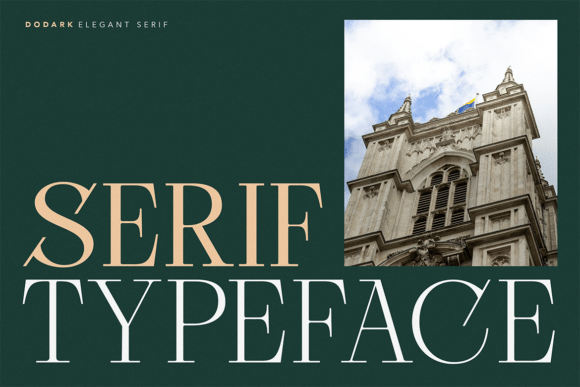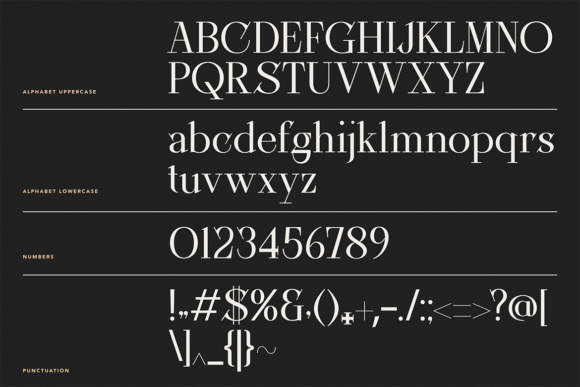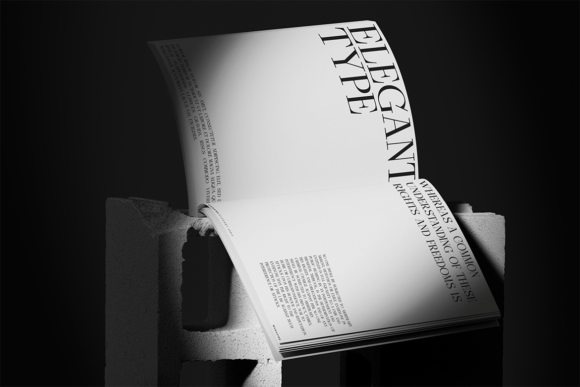
Discover the Elegance of Dodark Font: Elevate Your Designs with Sophistication
In the world of typography, finding the perfect font that combines elegance, simplicity, and versatility can be a daunting task. However, for designers and crafters looking to add a touch of sophistication to their projects, the search ends with Dodark Font. This exquisite duo, consisting of Dodark Regular and Thin Font, is meticulously designed to meet the needs of ventures that covet a refined aesthetic. In this article, we’ll delve into the features, benefits, and potential uses of Dodark Elegant Serif Font, exploring how it can elevate your designs to new heights.
The Essence of Dodark Font
Dodark Font is not just a typeface; it’s an experience that brings together the harmony of sophistication and simplicity. Its distinguishable yet adaptable style makes it an ideal choice for a wide range of design projects, from luxury branding and high-end fashion to elegant editorial content and sophisticated digital interfaces. The duo’s versatility is one of its most compelling features, allowing designers to effortlessly edit both text and color to suit their project’s specific needs.
Key Features of Dodark Font
• High-Quality Resolution: Dodark Font is rendered in high-quality resolution, ensuring that your designs look crisp and professional across various platforms and devices.
• Elegant Serif Design: The font features elegant serifs that add a touch of sophistication and luxury to any design, making it perfect for projects that require a refined look.
• Versatile Duo: With Dodark Regular and Thin Font, designers have the flexibility to choose the weight that best suits their project’s tone and style, from bold statements to subtle nuances.
• Effortless Edits: The adaptability of Dodark Font allows for effortless edits to both text and color, streamlining the design process and giving creators more freedom to experiment.
Applications of Dodark Font
The applications of Dodark Font are vast and varied. Here are a few examples of how this elegant serif font can be used:
• Branding and Logo Design: Create a lasting impression with a sophisticated brand identity that stands out from the competition.
• Editorial Design: Elevate magazines, newspapers, and digital publications with a refined and elegant typography.
• Web Design: Enhance user experience with a clean and sophisticated digital interface that communicates luxury and professionalism.
• Marketing and Advertising: Capture your audience’s attention with elegant and compelling typography that conveys your message effectively.
Why Choose Dodark Font?
In a sea of typefaces, Dodark Font stands out for its unique blend of elegance, versatility, and quality. Here are a few reasons why designers and crafters are gravitating towards Dodark:
• Unique Aesthetic: Dodark offers a distinctive look that can help your designs stand out.
• Time-Saving: With its high-quality resolution and adaptable style, Dodark Font saves designers time and effort in the design process.
• Cross-Platform Compatibility: Dodark Font is designed to perform well across different mediums and devices, ensuring consistency in your brand’s visual identity.
Dodark Font is more than just a typeface; it’s a design statement that speaks of elegance, sophistication, and versatility. Whether you’re a designer looking to elevate your brand’s visual identity or a crafter seeking the perfect typography for your project, Dodark offers a harmonious blend of style and functionality. Experience the elegance and simplicity of Dodark Font today and discover how it can transform your designs into timeless pieces of art.